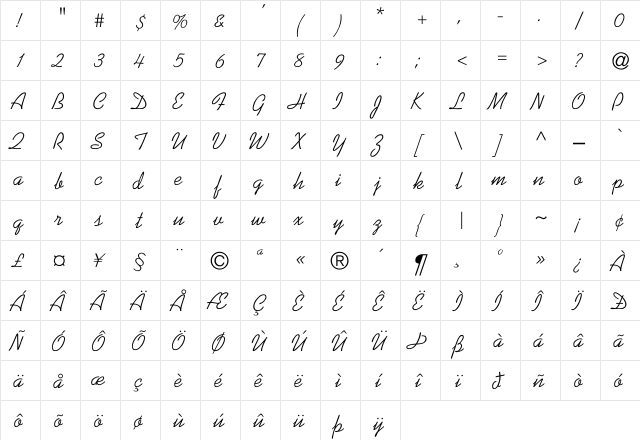
Kaufmann-Normal Regular
Design Context for Kaufmann-Normal Typeface
Kaufmann-Normal takes a measured approach to typography — its balanced proportions and neutral character make it a reliable workhorse for both digital and print work.